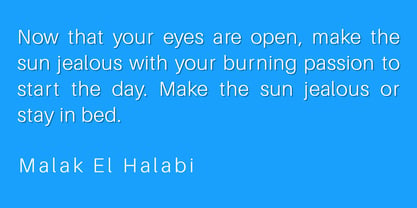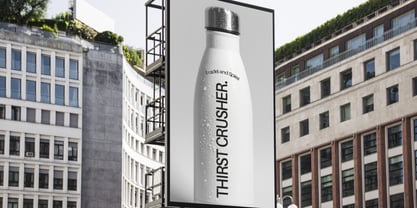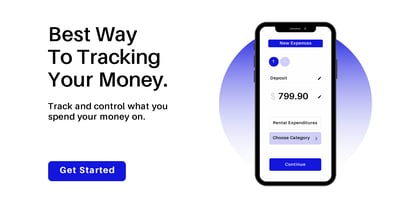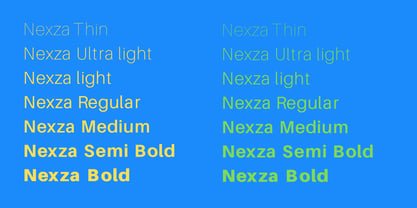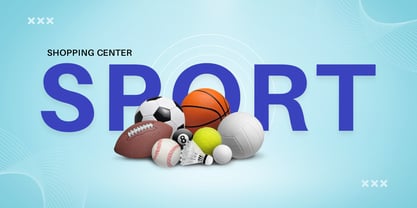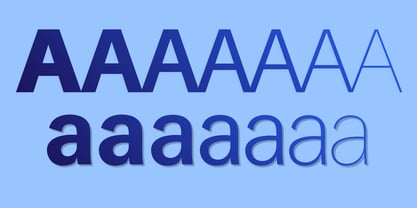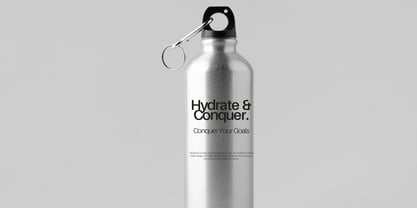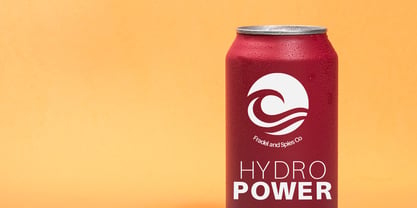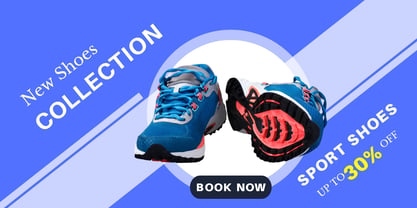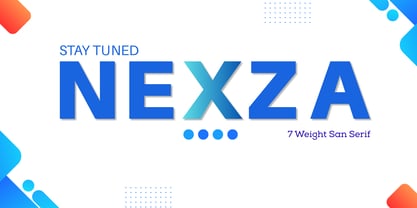
Nexza
The Nexza Font Family was designed by Ari Budi Setiawan and published by Zanfonts. Nexza contains 7 styles and family package options. More about this family
Nexza is a modern geometric sans family engineered for bold identities, futuristic branding, and precise visual communication. Defined by precise geometry, confident proportions, and a refined minimalist character, Nexza balances a futuristic attitude with everyday versatility.
Its clean construction gives headlines a strong architectural presence while maintaining clarity and consistency across branding, editorial layouts, packaging, digital interfaces, and advertising. The family comes in 7 carefully balanced weights: Thin, UltraLight, Light, Regular, Medium, SemiBold, and Bold, providing designers with a wide tonal range within one cohesive type system.
The lighter styles evoke an elegant, spacious, and sophisticated feel, while the bolder weights deliver confident impact for headlines, posters, logos, and display typography. Nexza is especially effective when typography needs to convey a modern, intelligent, confident, and forward-looking essence without becoming overly decorative.
Its distinctive uppercase forms create memorable wordmarks and titles, while the clean lowercase maintains excellent versatility for supporting copy and smaller text. The family includes an extended Latin character set, numerals, punctuation, symbols, kerning, standard ligatures, localized forms, and a stylistic alternate, providing the flexibility required for professional design projects.
Perfect for brand identities, logos and wordmarks, technology branding, automotive and motorsport graphics, architecture and industrial design, fashion branding, packaging, editorial design, posters, advertising, websites, apps, social media, presentations, signage, and modern corporate communication.